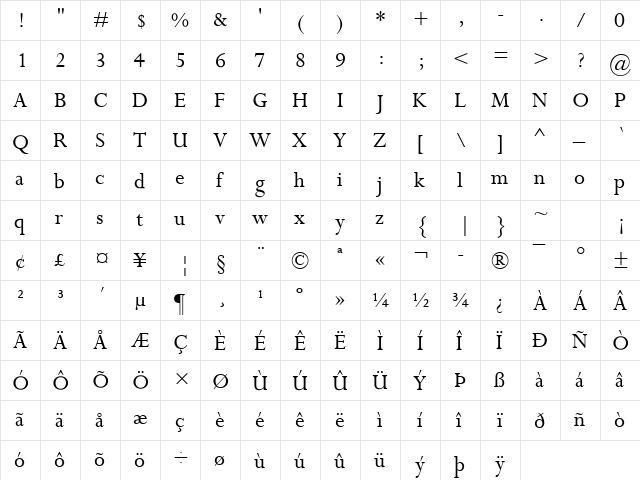
Perpetua MT Regular
| Foundry | Agfa Monotype Corporation |
| Designer | Eric Gill |
Design Context for Perpetua MT Typeface
Perpetua MT is a composed and adaptable typeface that performs quietly and consistently across a wide range of design contexts.